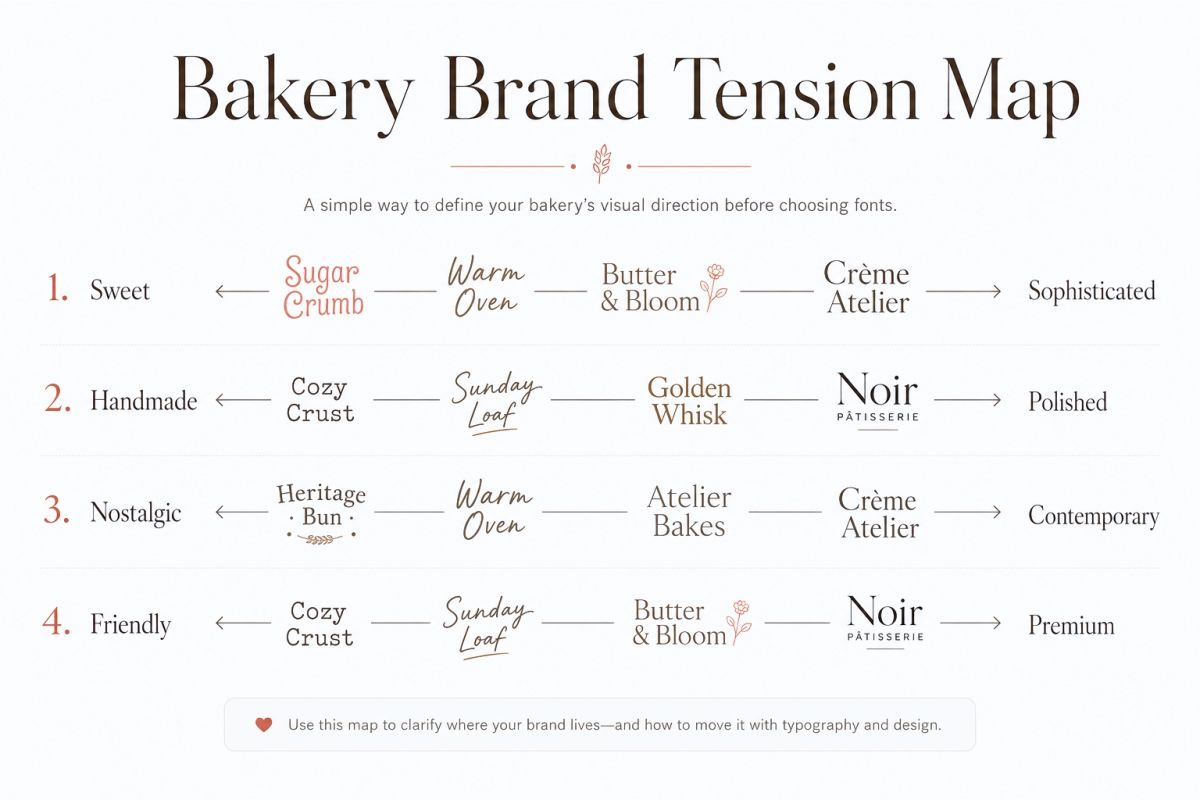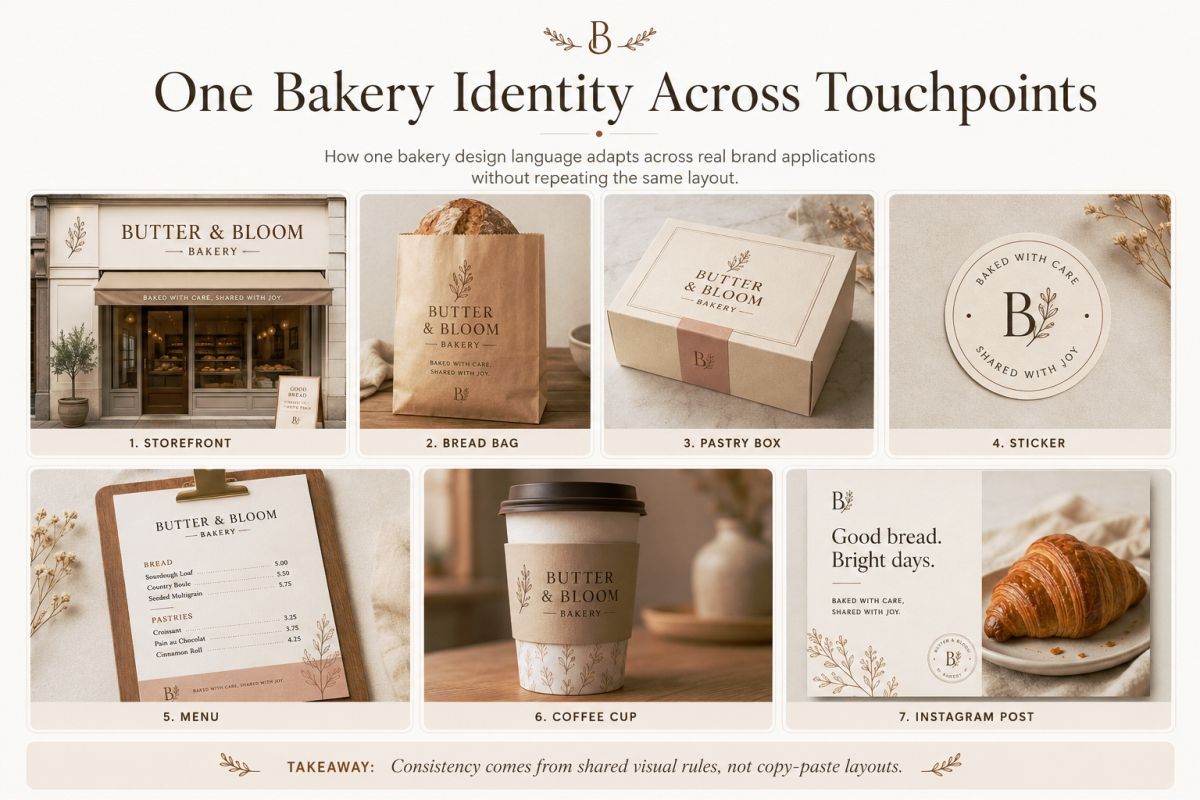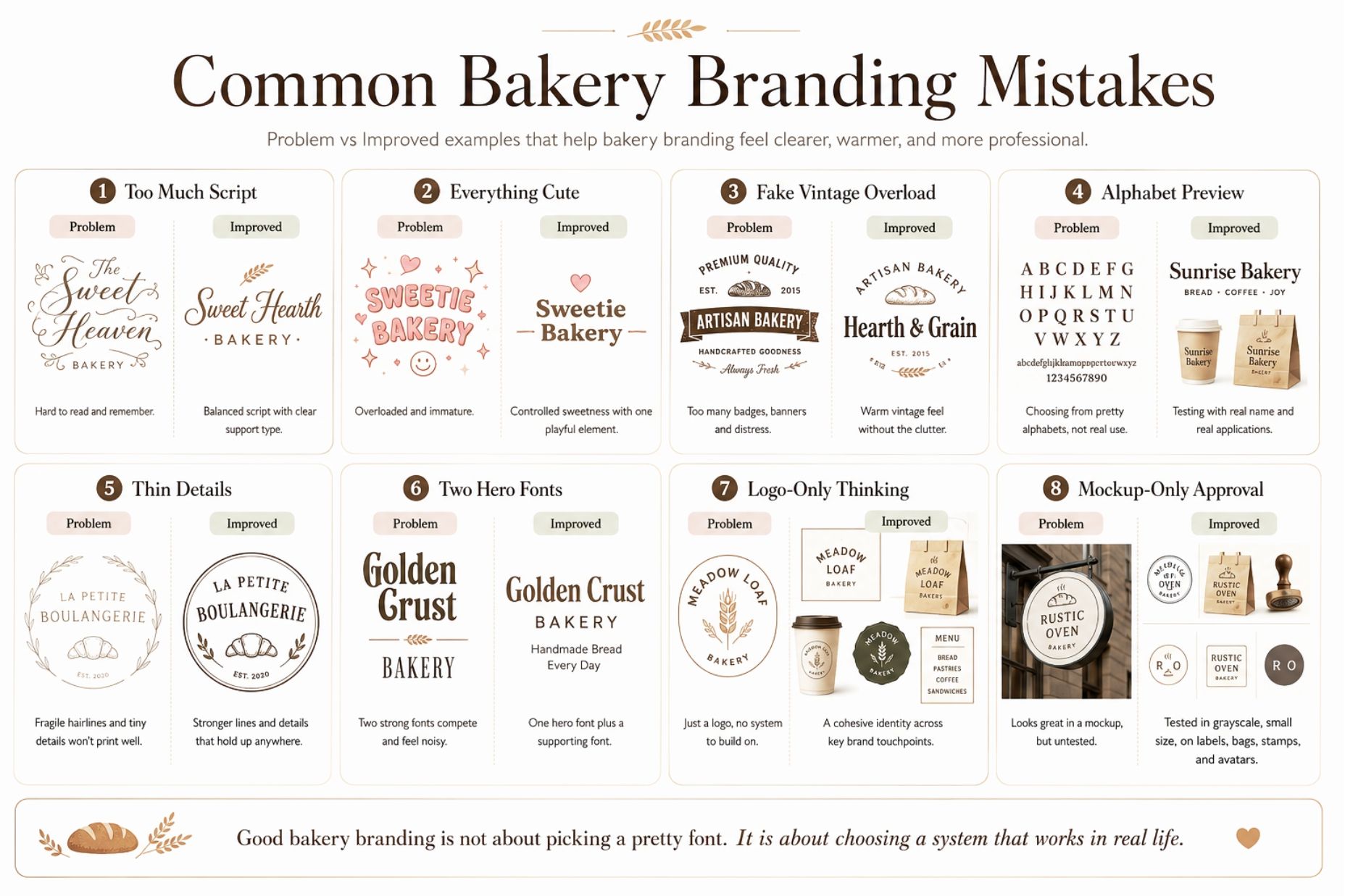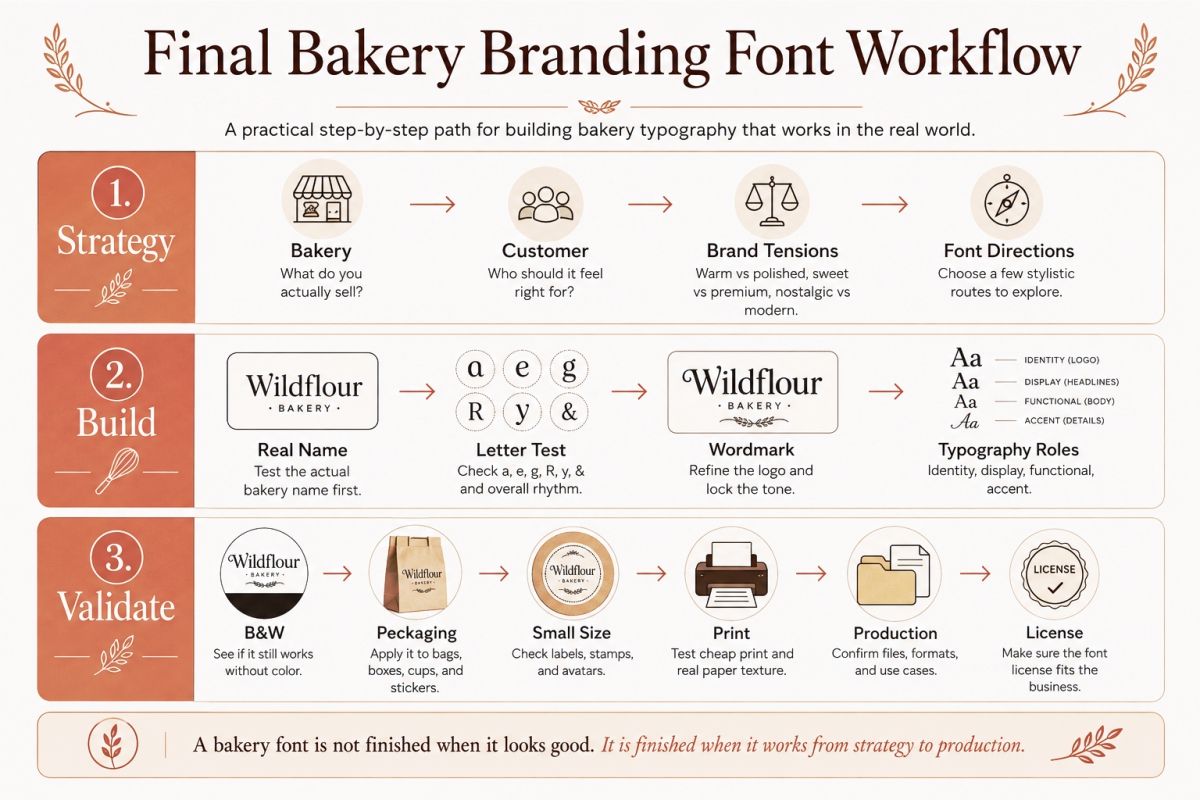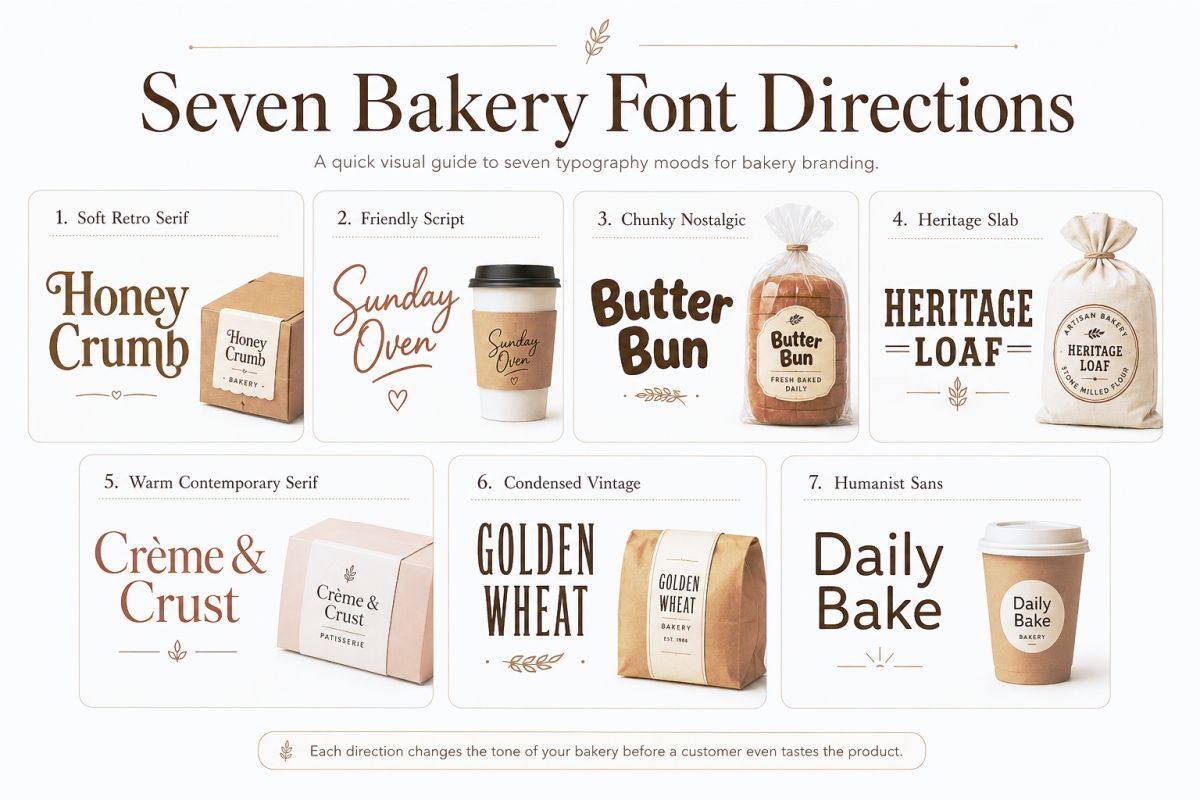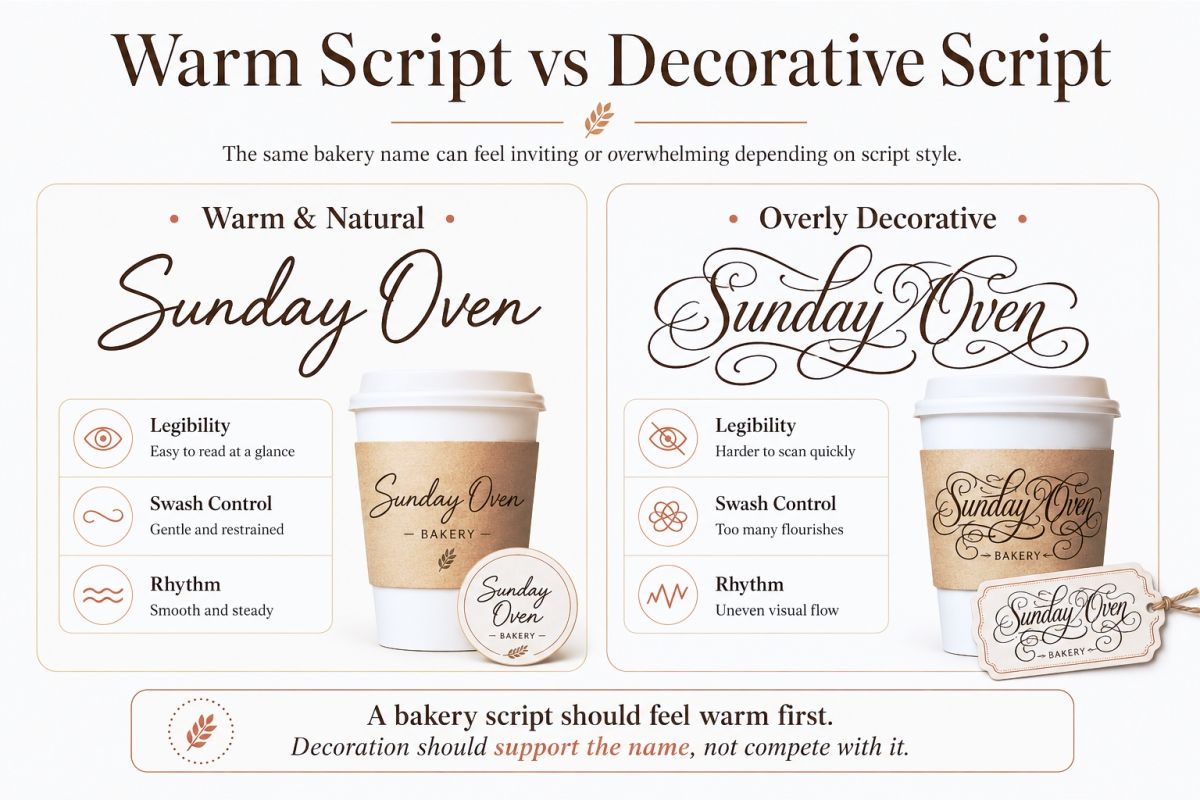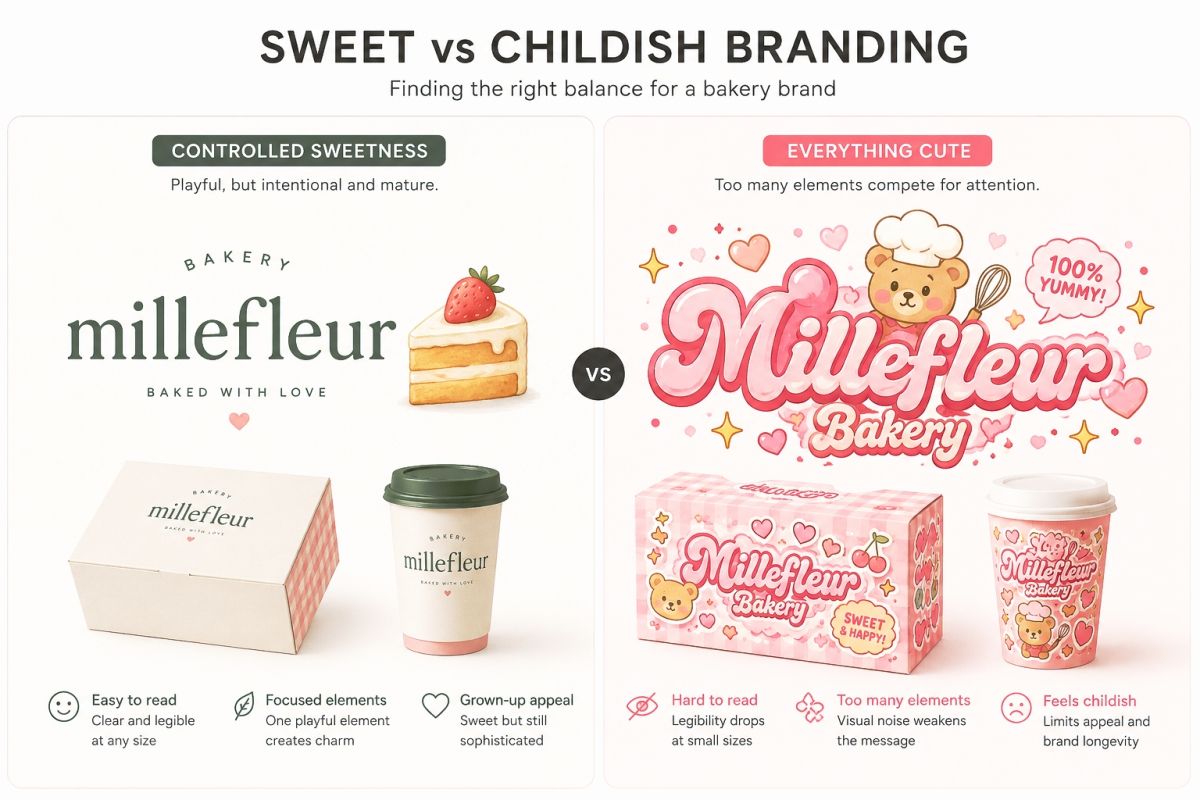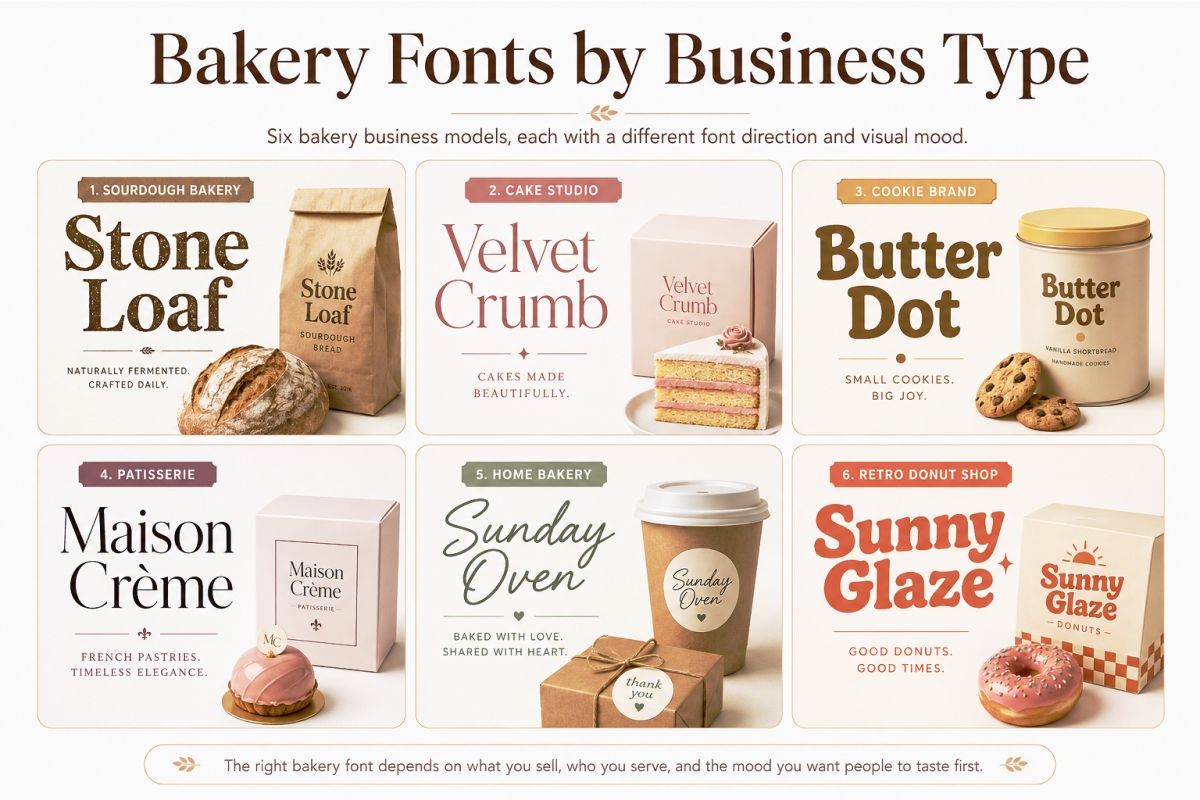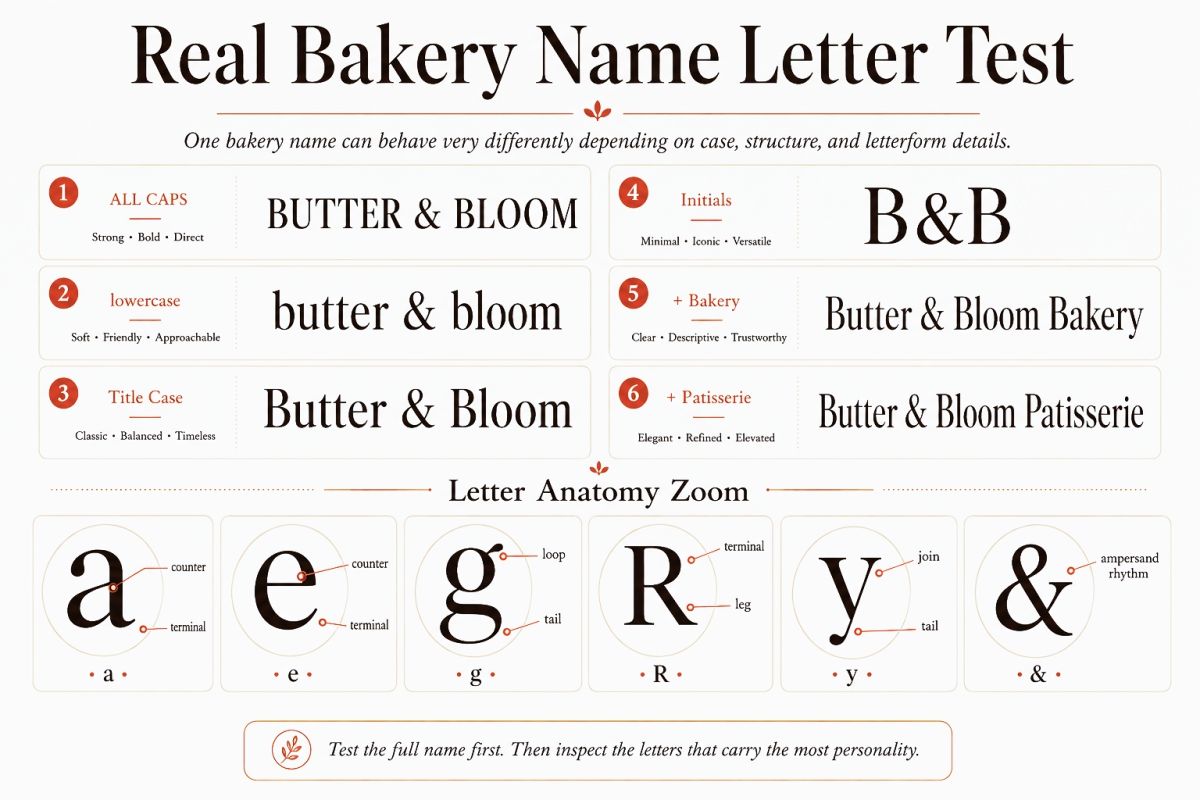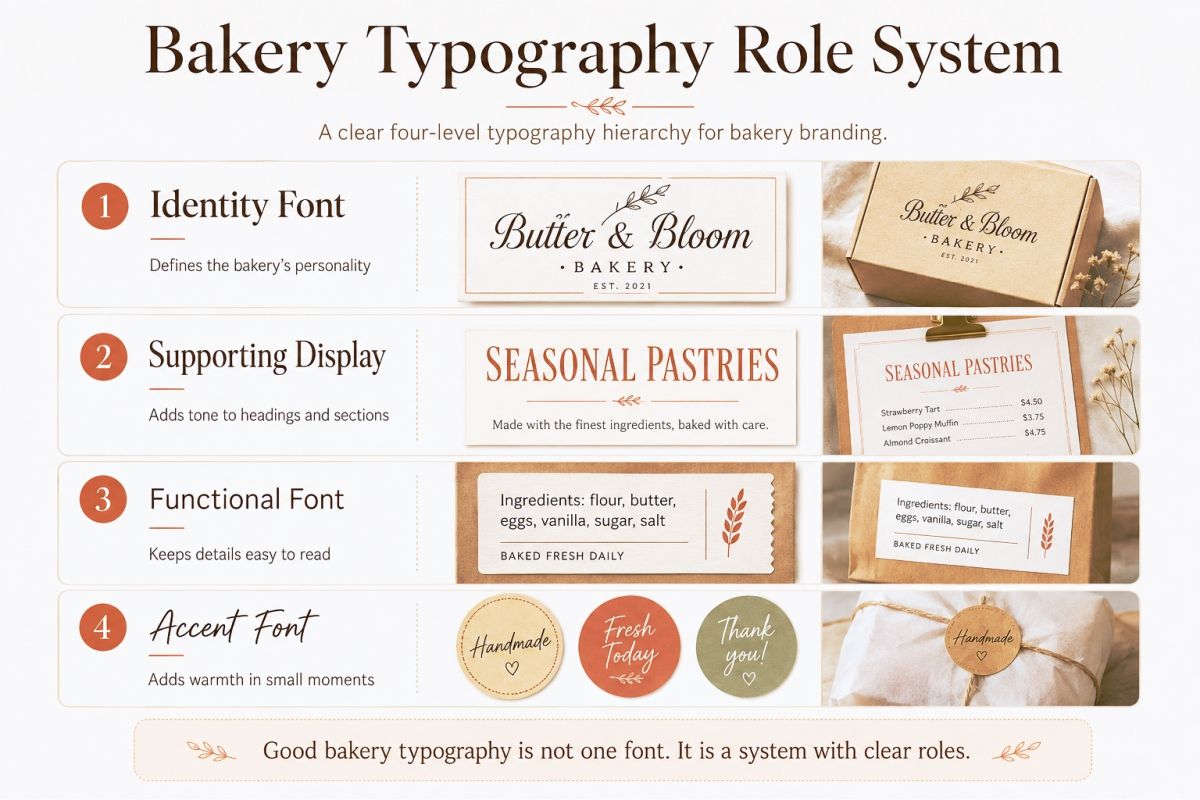
Bakery Branding Fonts for Sweet, Warm, and Nostalgic Visuals
Choosing bakery branding fonts sounds easy until every option starts looking like the same combination of script lettering, wheat illustrations, and beige packaging.
That is the problem.
A bakery font should not simply look “bakery-ish.”
It needs to tell you something more specific.
Is this a tiny neighborhood bakery that makes sourdough every morning? A playful cookie shop? A premium French-inspired patisserie? A nostalgic donut counter? Or a home bakery selling personalized cakes through Instagram?
Those businesses may all sell baked goods, but they should not sound identical visually.
I prefer to think of bakery branding fonts as ingredients.
One creates warmth. Another adds nostalgia. Another makes the identity feel polished. Another gives it personality.
The best result comes from controlling the recipe rather than throwing every charming font into the same layout.
Bakery Brand Tension Map
Start With the Feeling Behind the Bakery
Before browsing fonts, define what customers should feel when they see your bakery.
Not what the font should look like.
What should the bakery feel like?
This small difference changes the way you search.
Instead of:
I need a cute bakery font.
Try:
I want the bakery to feel homemade, generous, slightly nostalgic, but still polished enough for premium packaging.
That gives you something useful to design around.
For bakery branding, I often think in four tension scales:
Sweet ↔ Sophisticated
Handmade ↔ Polished
Nostalgic ↔ Contemporary
Friendly ↔ Premium
Your bakery can sit somewhere between the two extremes.
A cupcake shop may lean sweet, friendly, and playful.
A sourdough bakery could feel handmade, warm, and restrained.
A boutique patisserie might move toward sophisticated, polished, and premium.
A retro donut brand could push nostalgia much further.
There is no universally correct bakery font.
There is only a font that supports the particular bakery you are building.
Bakery Fonts Should Create Recognition, Not Just Decoration
Bakery identities naturally attract decorative typography.
Scripts.
Swashes.
Chunky retro letters.
Vintage badges.
Distressed textures.
Illustrated wheat.
Arched text.
All of these can work.
The issue starts when decoration becomes the identity.
Imagine removing the croissant illustration, pastel palette, badge border, and paper texture from a bakery logo.
Would the wordmark still have character?
That is a useful test.
Strong bakery branding fonts should contribute something recognizable through the letterforms themselves.
Maybe the lowercase a has a warm shape.
Maybe the uppercase R has an unusual leg.
Maybe the font has broad rounded proportions that make the brand feel generous.
Maybe one slightly irregular letter creates the handmade feeling you need.
You do not need ten special details.
Sometimes one memorable letter is enough.
Seven Bakery Font Directions
7 Bakery Branding Font Directions Worth Exploring
Rather than searching for one perfect “bakery font,” I recommend testing several visual directions.
Each one tells a different story.
1. Soft Retro Serif
A soft retro serif is one of my favorite starting points for bakery branding.
It can feel nostalgic without becoming overly rustic.
Look for:
• Rounded serif shapes
• Moderate stroke contrast
• Slightly wide proportions
• Soft terminals
• Distinctive lowercase characters
This direction works especially well for bread shops, cookie brands, casual cafés, specialty baking products, and retro-inspired packaging.
Pair it with a restrained sans serif and the result can feel nostalgic but current.
The trick is moderation.
If the font is already expressive, you probably do not need a vintage badge, rough texture, curved tagline, and illustration fighting around it.
Let the letters do some of the work.
2. Friendly Handwritten Script
Script fonts can immediately suggest something personal and handmade.
That makes them tempting for bakeries.
But there is a large gap between warm handwriting and overly decorative calligraphy.
For everyday bakery branding, I usually prefer a script that feels:
• Relaxed
• Legible
• Slightly imperfect
• Confident rather than delicate
• Natural in short words
Think more handwritten bakery note than formal wedding invitation.
Use scripts strategically.
A script may work beautifully for the main logo but become exhausting when repeated across menu categories, product names, prices, packaging information, and social media graphics.